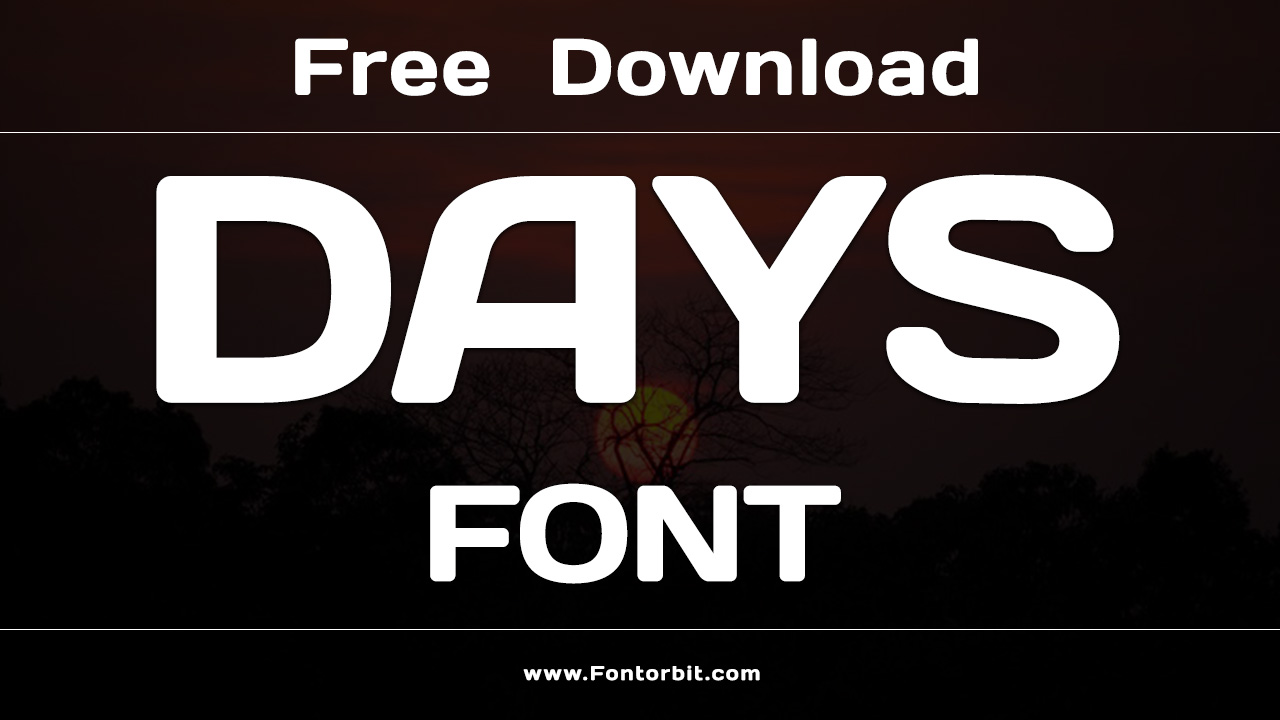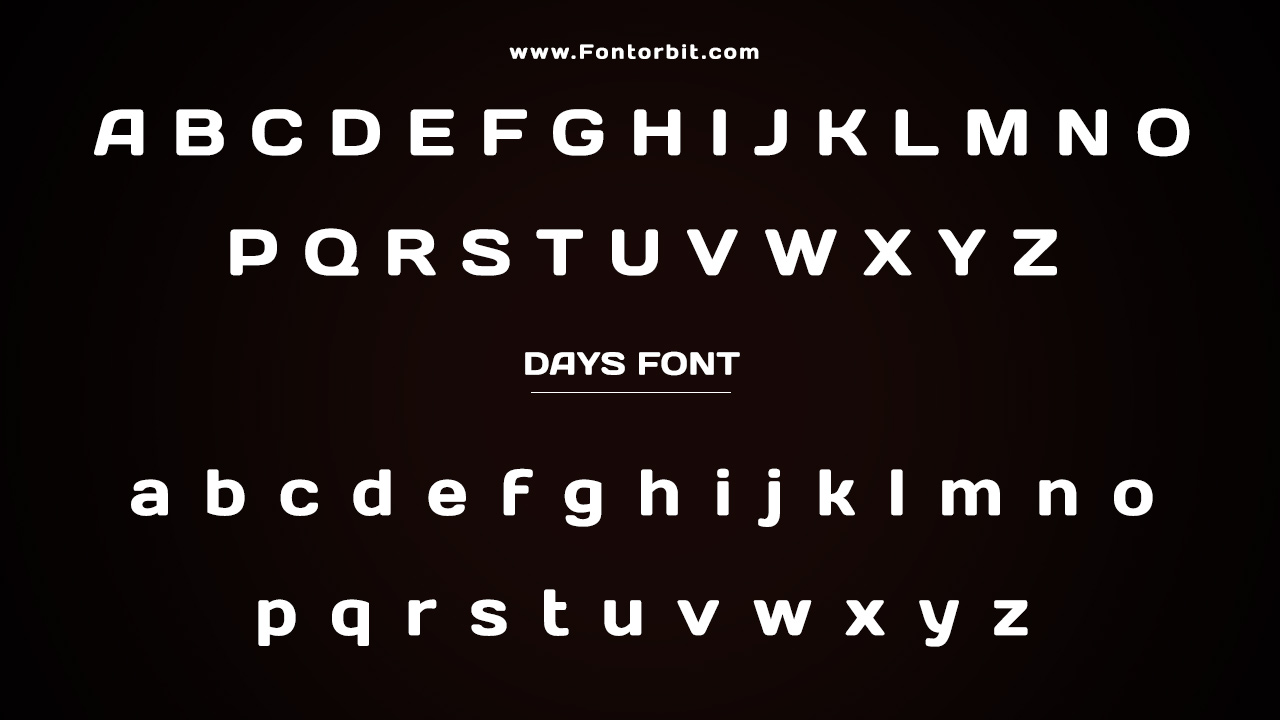
Days is a modern sans-serif typeface designed by Jovanny Lemonad. It was recently published and is part of a collection created for users who appreciate the beauty and functionality of Libre fonts. The Days font family is stylish and supports a charitable cause, with donations going towards the treatment of children with cancer.
Notable Uses Of Days Font
The Days font has been used in a variety of contexts, such as:
- Event Promotions
You can use the Days font in multiple settings, including:
- Digital media
- Print media
- Presentations